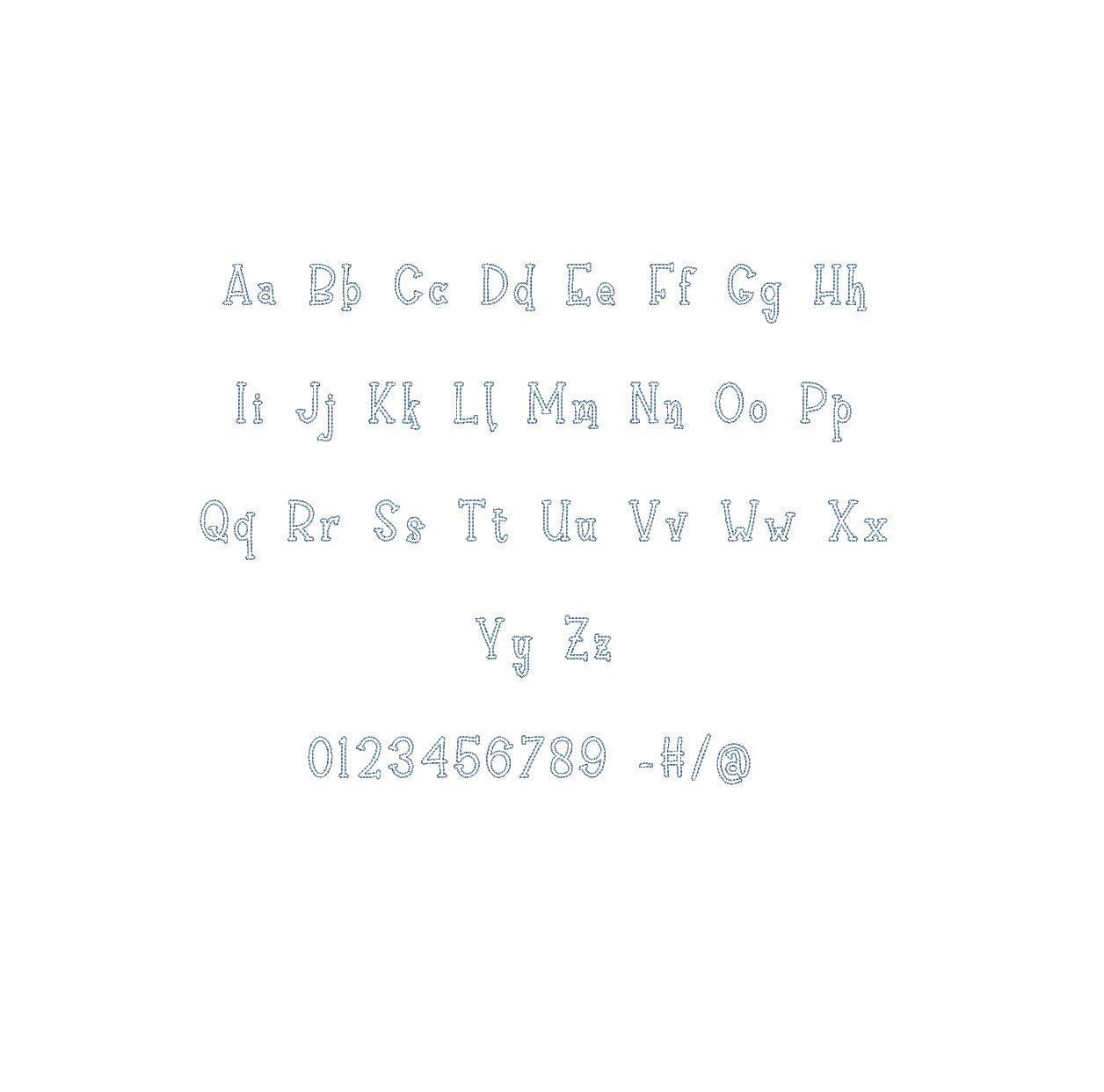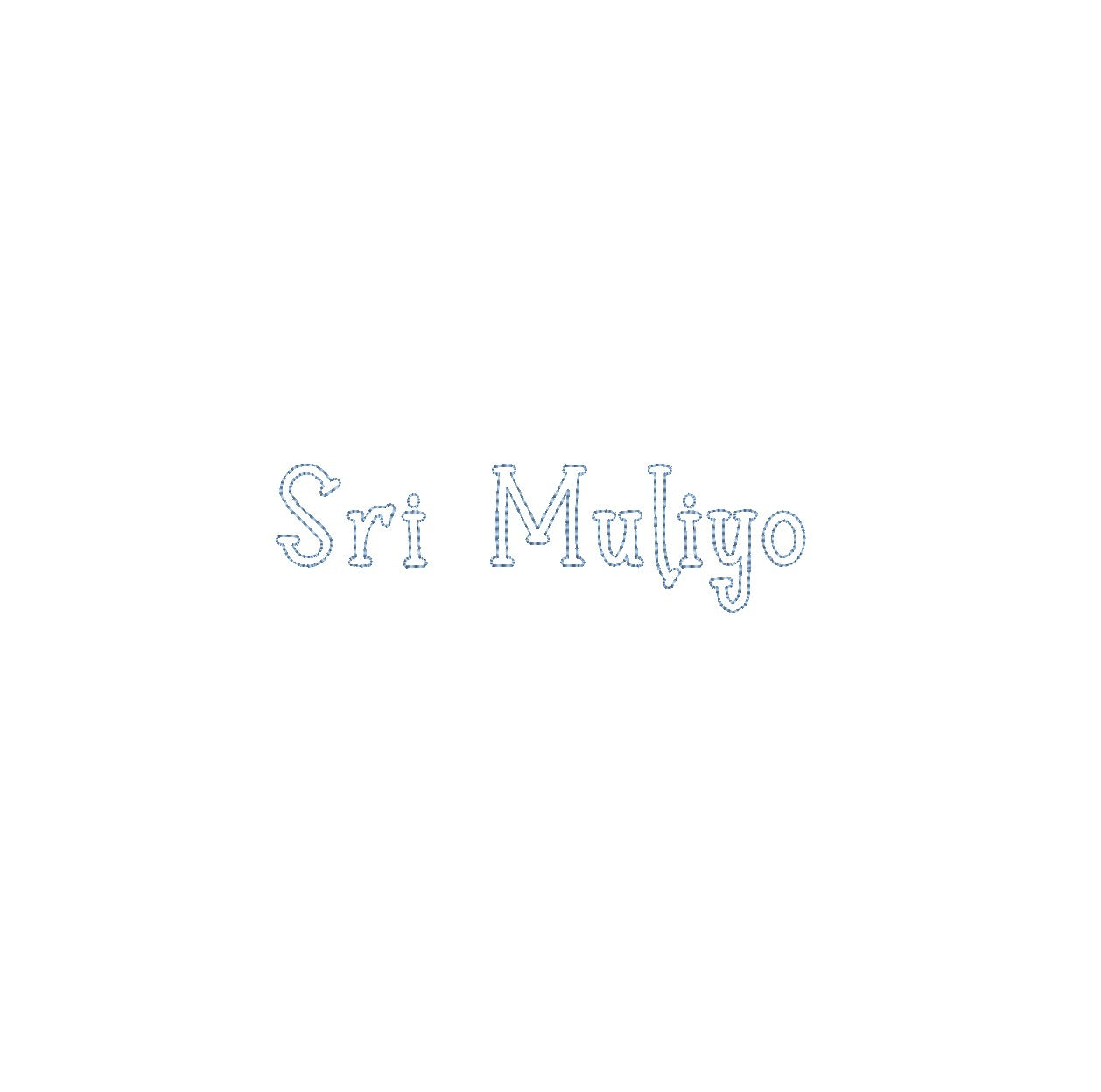
Elevate your embroidery with the Sri Muliyo Bean Outline ESA font, compatible with Wilcom Studio e4.5.6 and Hatch 3 versions and up. This font seamlessly combines intricate elegance and precision, infusing your designs with a unique aesthetic perfect for sophisticated monograms and embellishments. Experience seamless compatibility for exceptional results and unleash a new level of stitching finesse. Transform your creations into embroidery masterpieces that radiate timeless charm and creativity. Elevate your projects with the Sri Muliyo Bean Outline ESA font and make your embroidery truly exquisite and unforgettable.